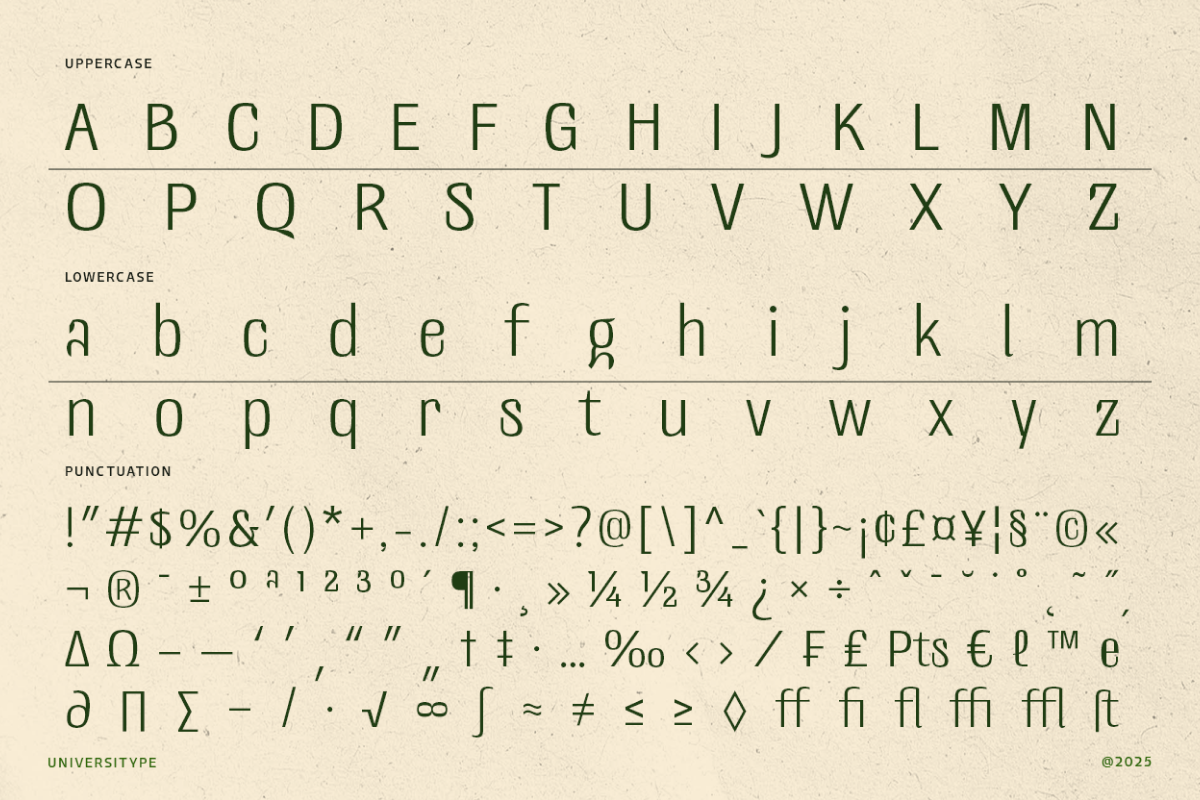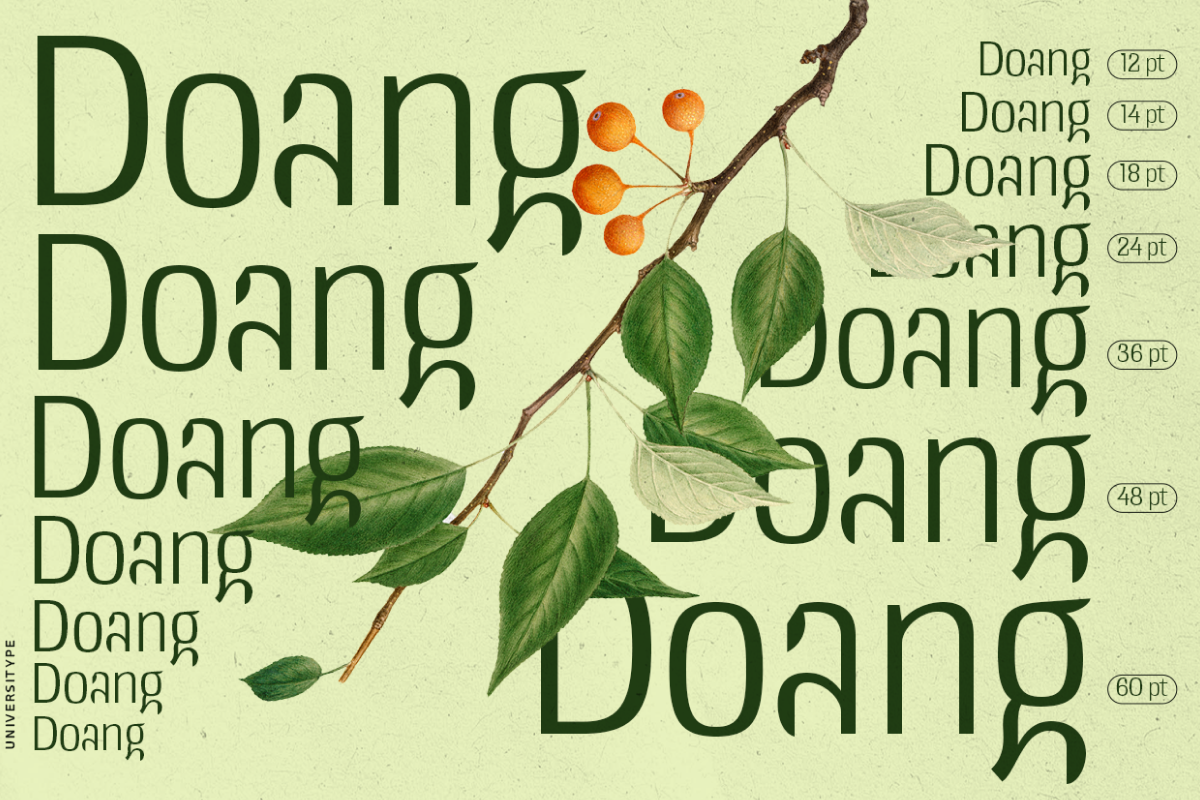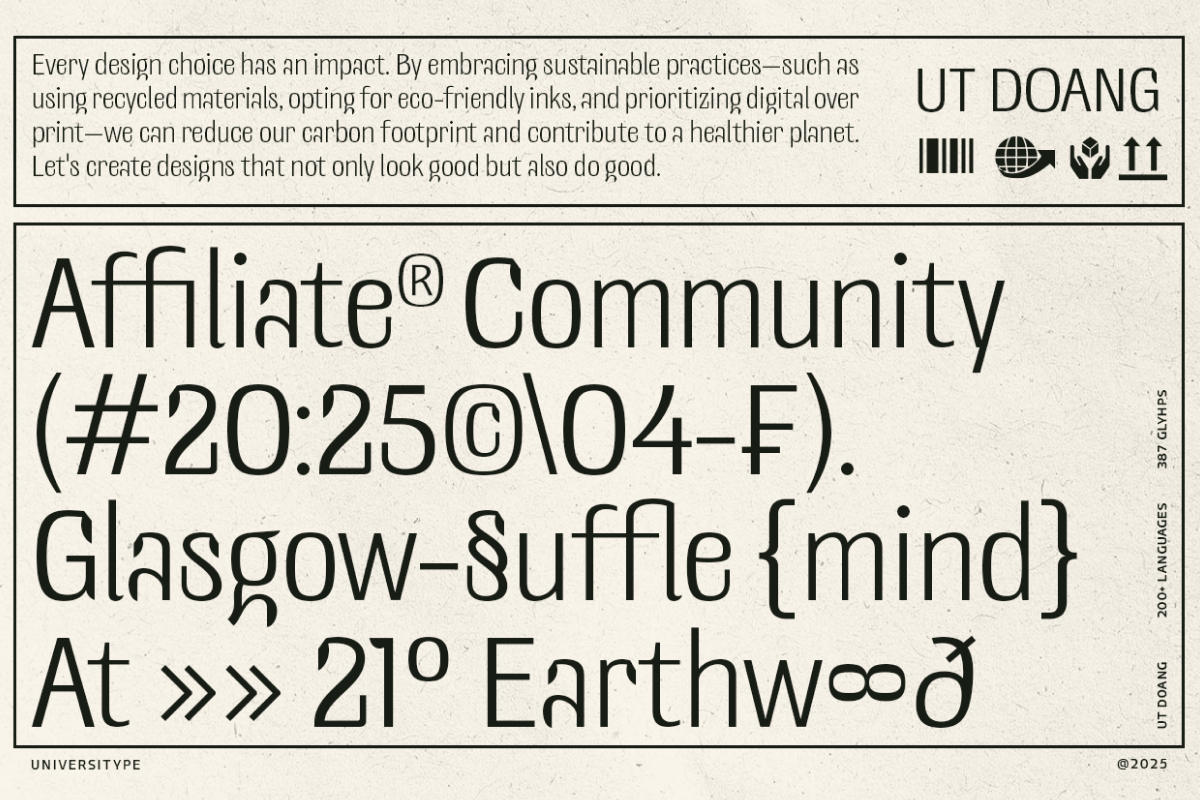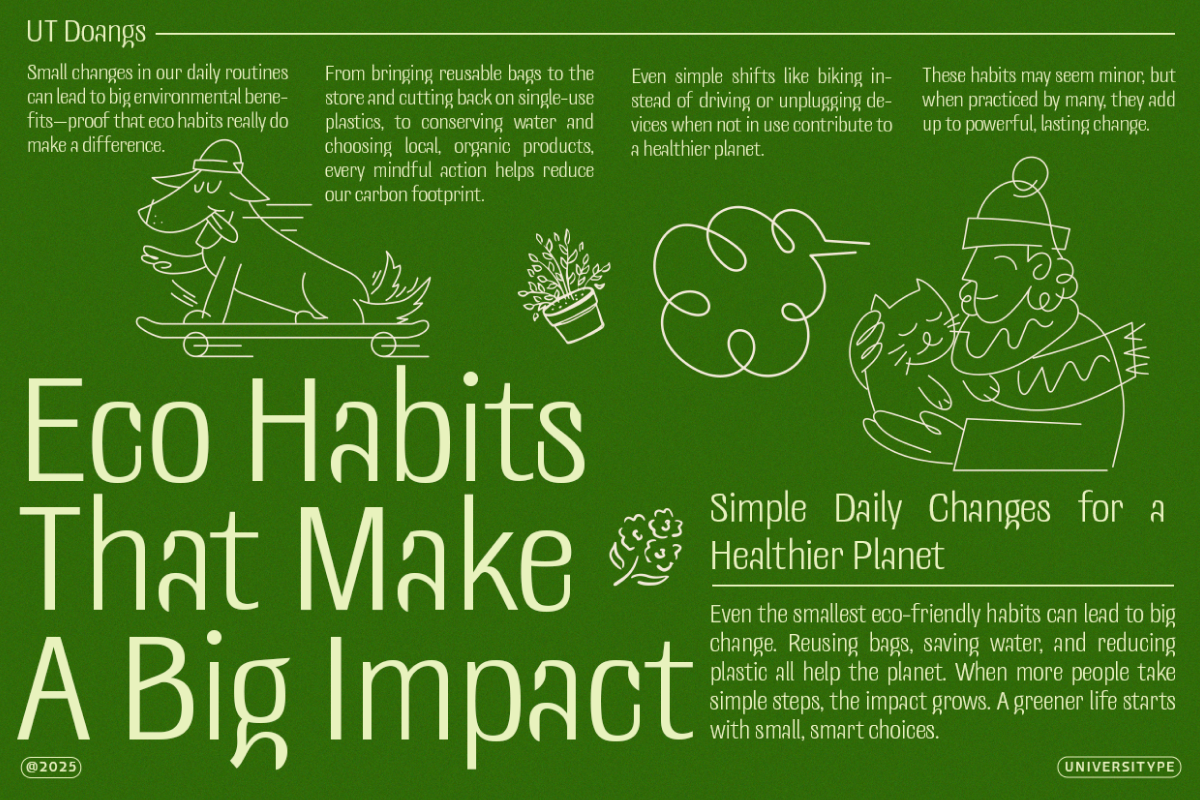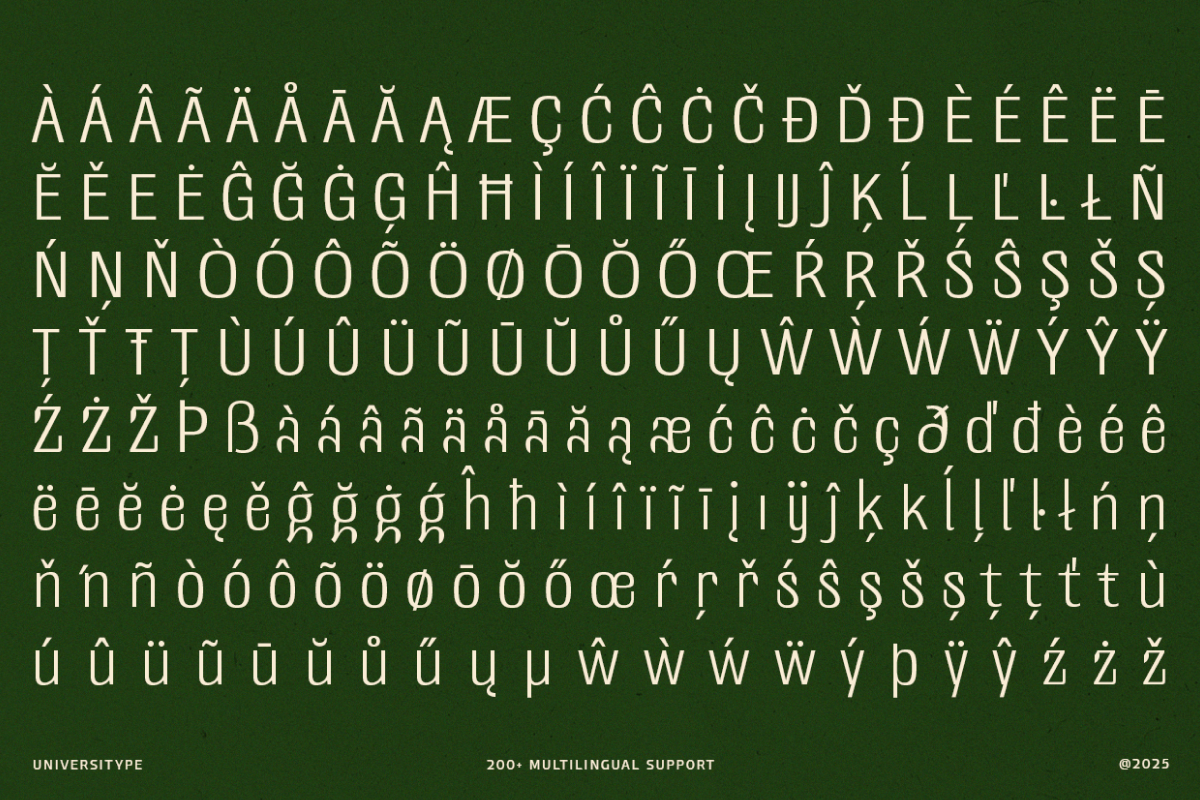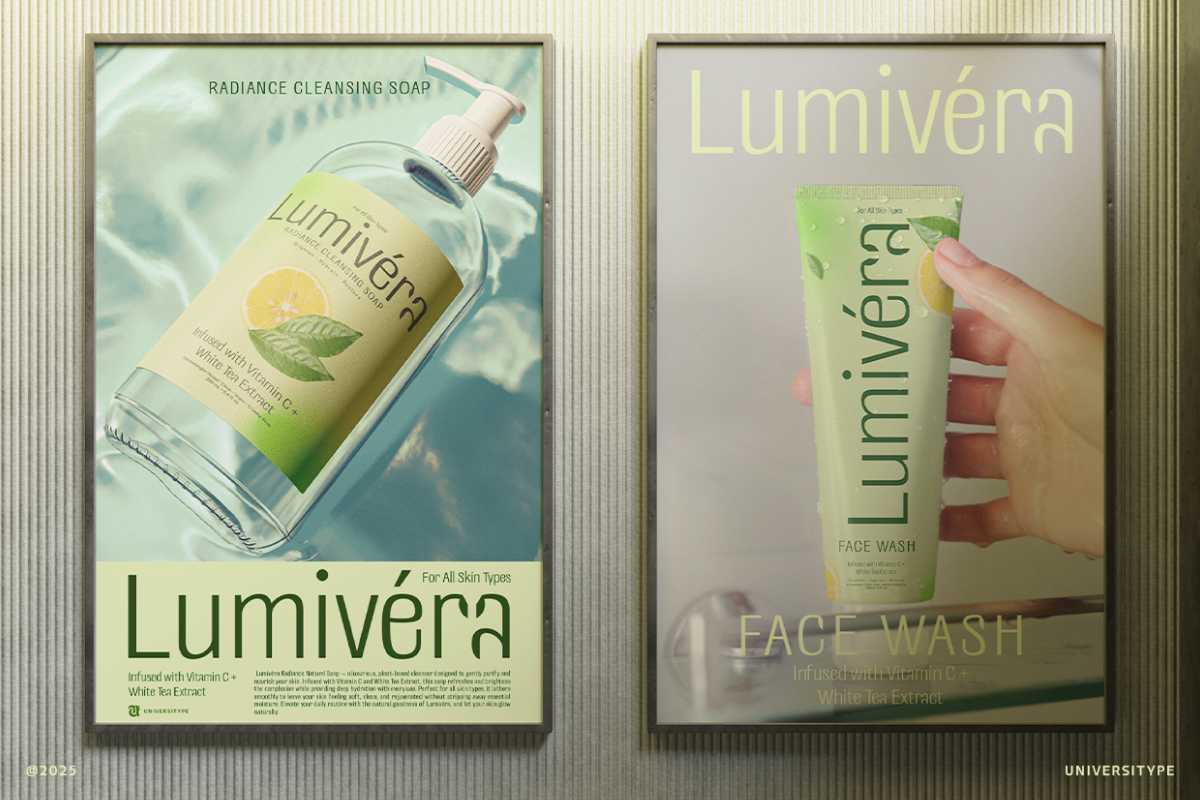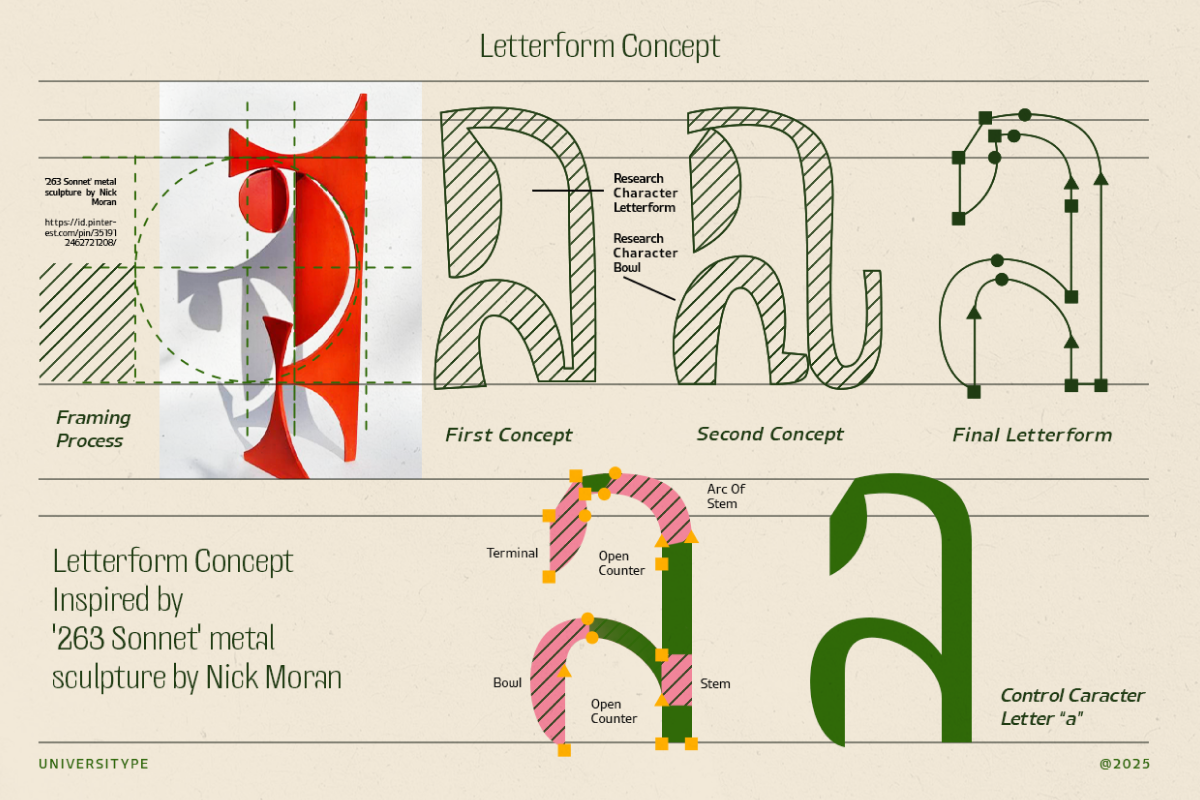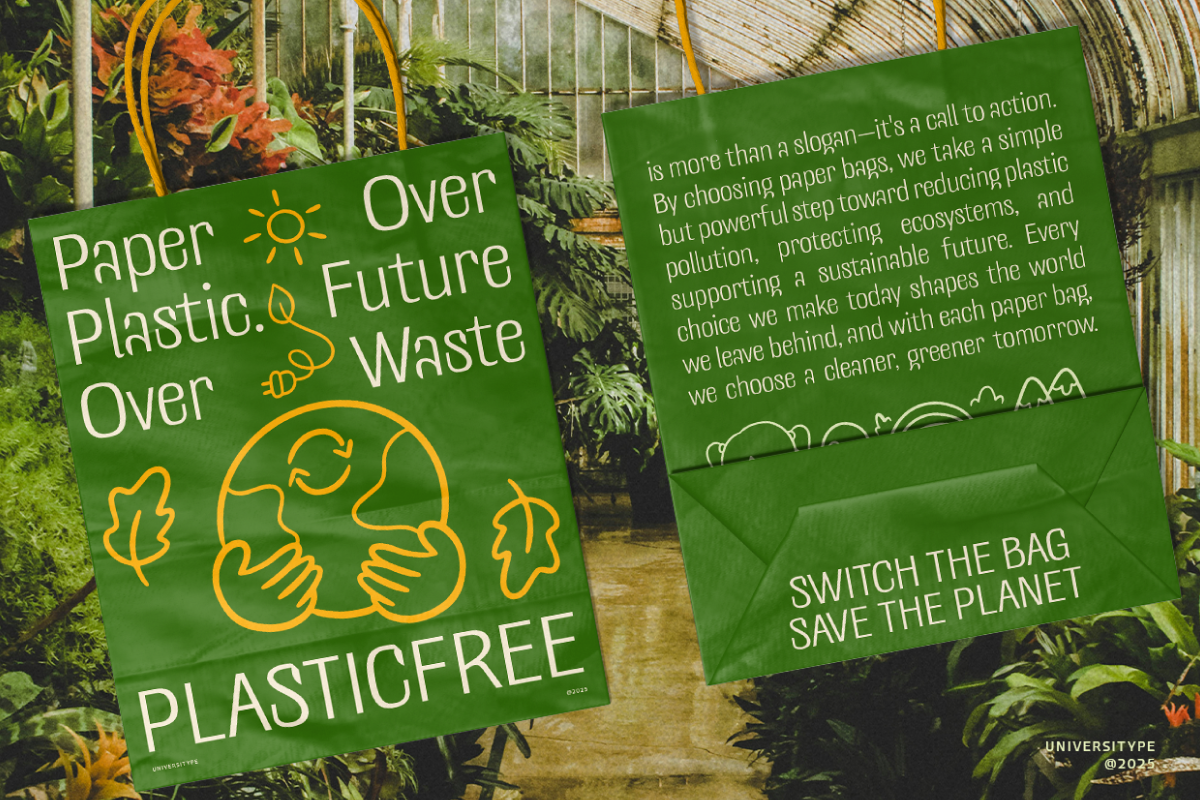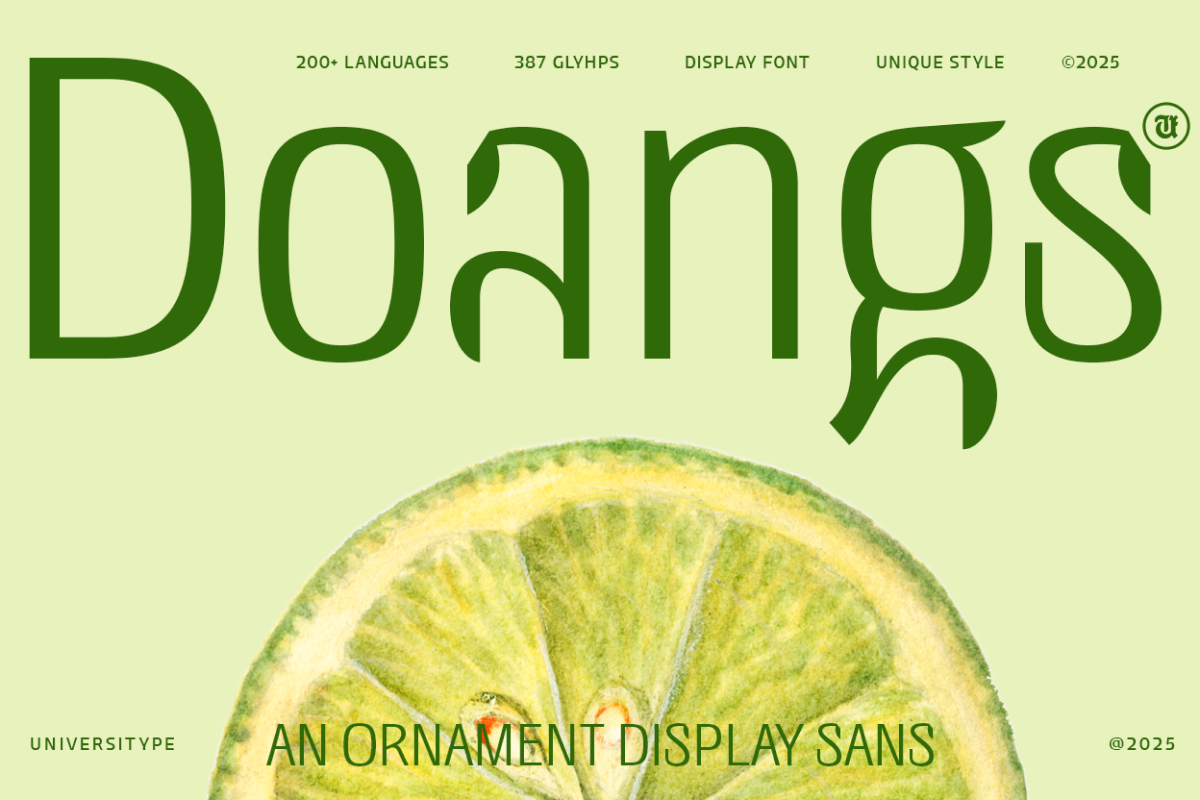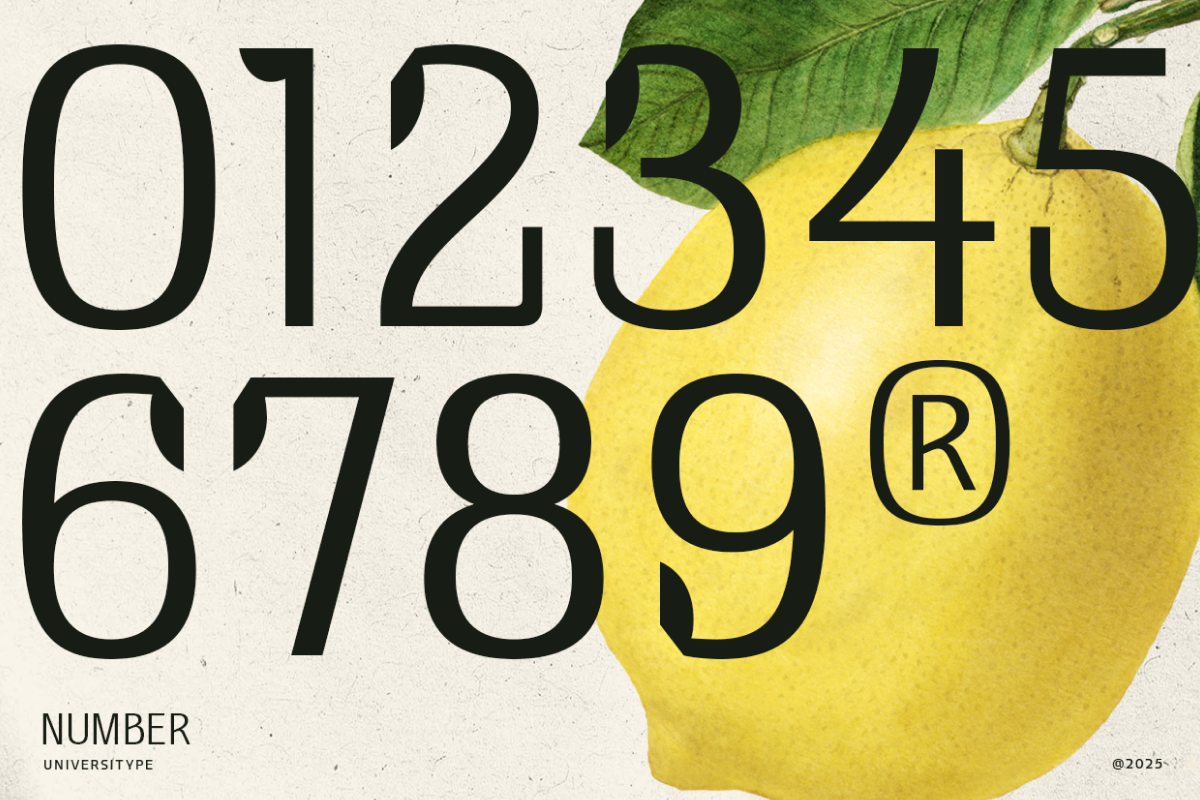
UT Doangs - An Ornament Display Font
Introducing the UT Doangs font- a striking fusion of typography and sculpture. This dynamic display typeface sources its inspiration from the essence of industrial art. It beautifully illustrates the elegant flex and tension of molded steel in the shape of alphabets. The unique, flowing asymmetry and heartening handmade impression of UT Doangs are specially designed for creative minds longing to leave a mark.
Whether it's for editorial layouts, posters, branding, album covers, or crafting an impressive visual identity, UT Doangs effortlessly merges the realms of art and typography. With its single weight, regular (Display), the font harmonizes uppercase & lowercase characters and punctuation & symbols, delicately spaced and kerned to enhance headline readability. Plus, it provides multilingual support (200+ Latin-based languages) and innovative OpenType features.
Why UT Doangs? The design is a tribute to Nick Moran’s "263 Sonnet" sculpture—a minimalist steel structure encapsulating both tension and elegance. This piece's capacity to marry raw industrial medium with a gentle, lyric touch sparked the conception of this typeface. Every curve, void, and the negative space in the artwork seemed like a prototype waiting to be transformed into a character of the alphabet.
Designing UT Doangs involved sketching over the sculpture’s silhouette, sourcing rhythmic gestures, and metamorphosing them into symbols with a distinct character and purpose. More than just a font, UT Doangs signifies structure, movement, and an engaging tactile tale. It’s not just a typeface, but a visually aesthetic salute to the skill of sculpting materials with purpose and emotion.
Envision UT Doangs enhancing the aesthetics of your next art and culture brand, the layout of a magazine, poster, or even novel album artwork. It’s also perfect for creating standout packaging labels, product designs, and experimental web design. Download UT Doangs and infuse your projects with sculptural dynamism that's second to none. Embrace this expressive font and don’t forget to share and tag us in your creations—we can't wait to spotlight your work!